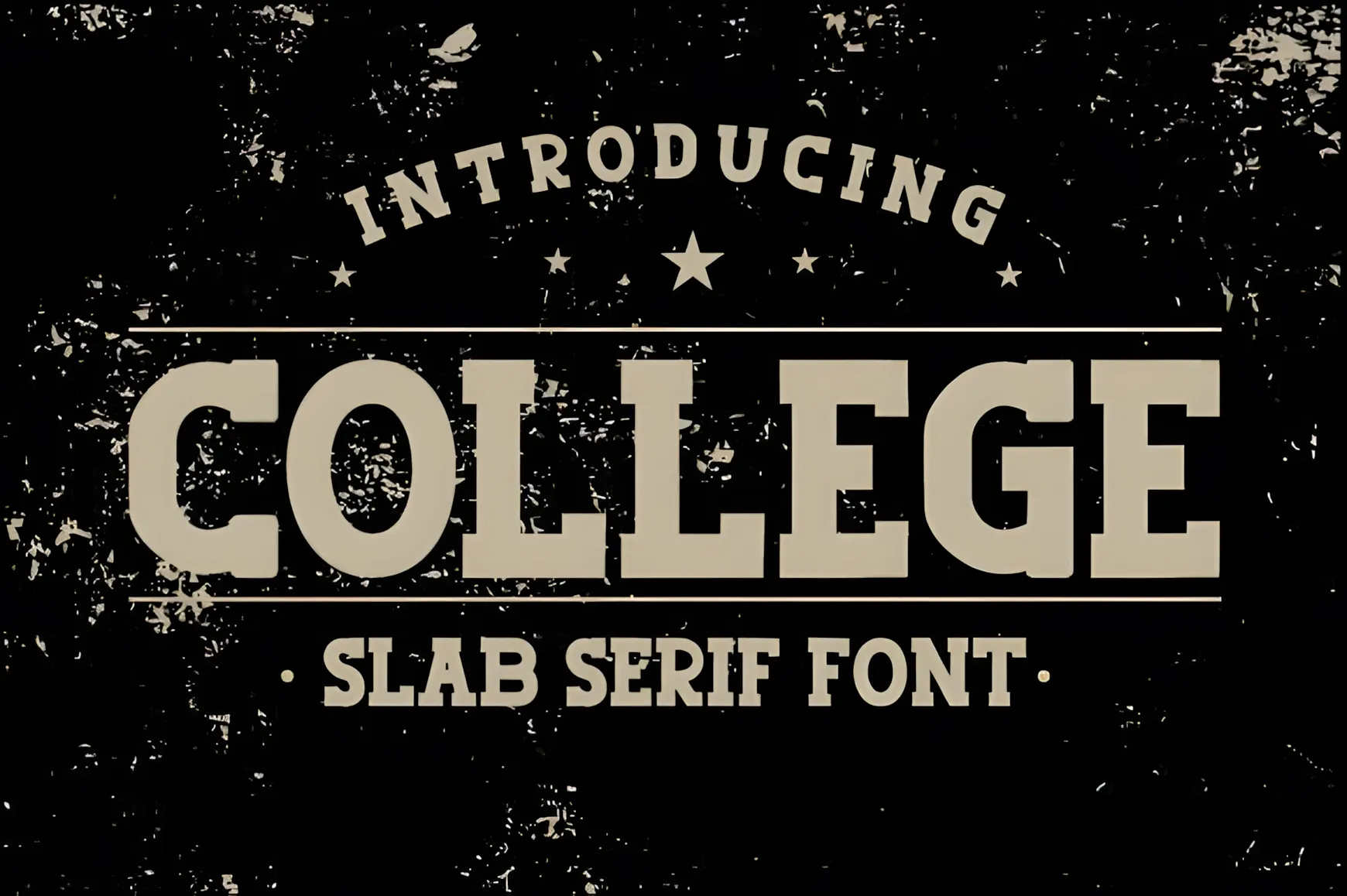
Vintage College Font: Classic Slab Serif With Warm Character
Some fonts immediately bring a sense of tradition and familiarity. Vintage College Font does exactly that. It captures the spirit of classic collegiate typography while adding a warm, rounded finish that makes